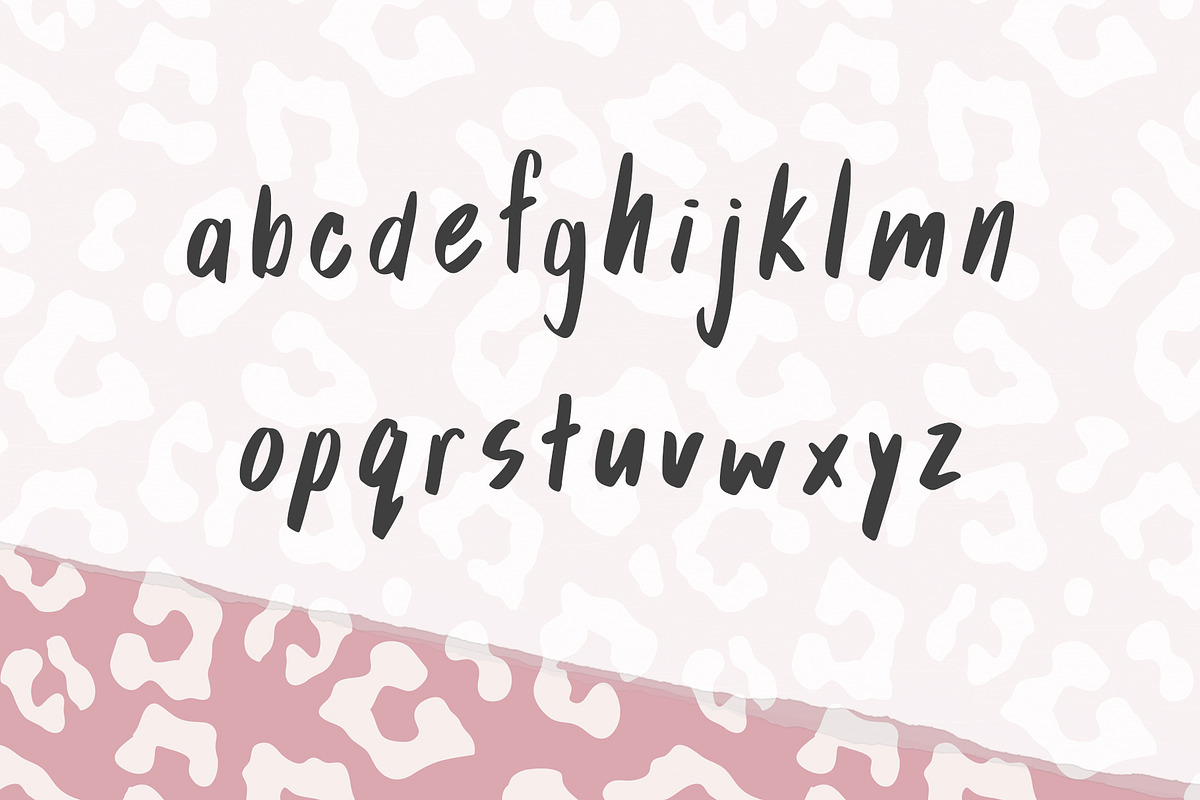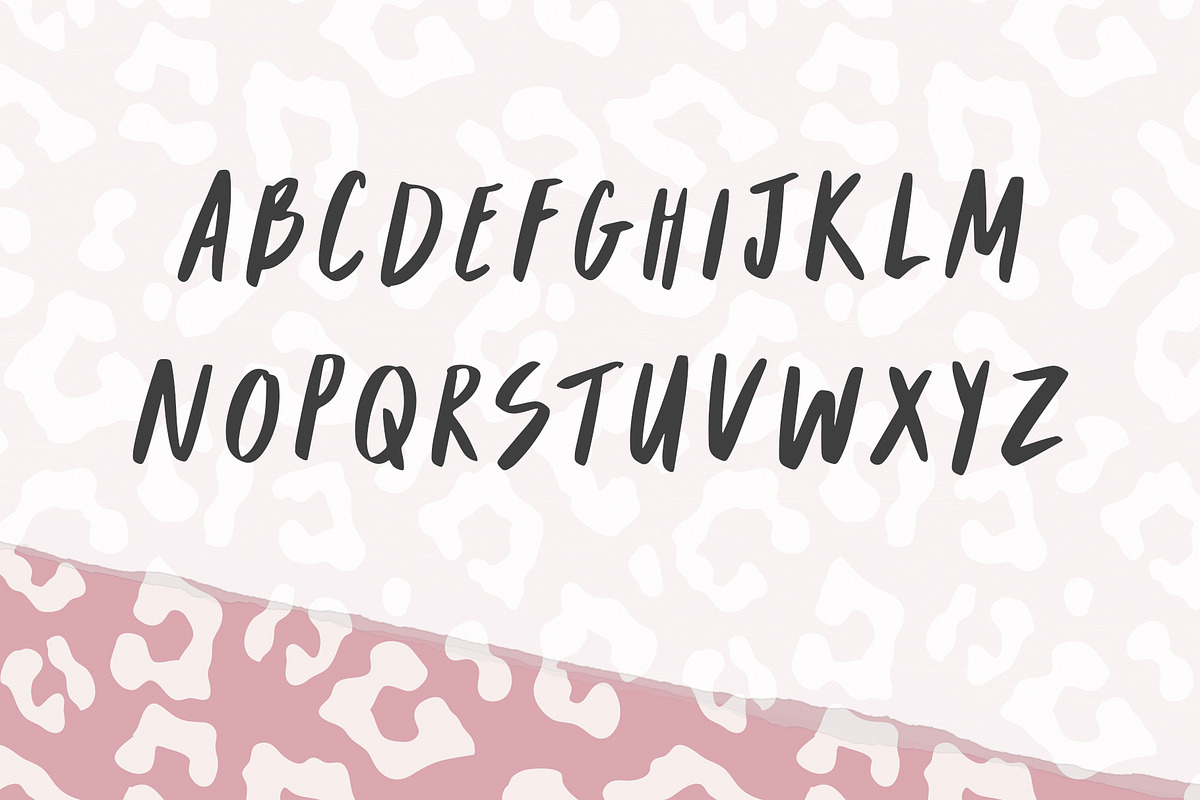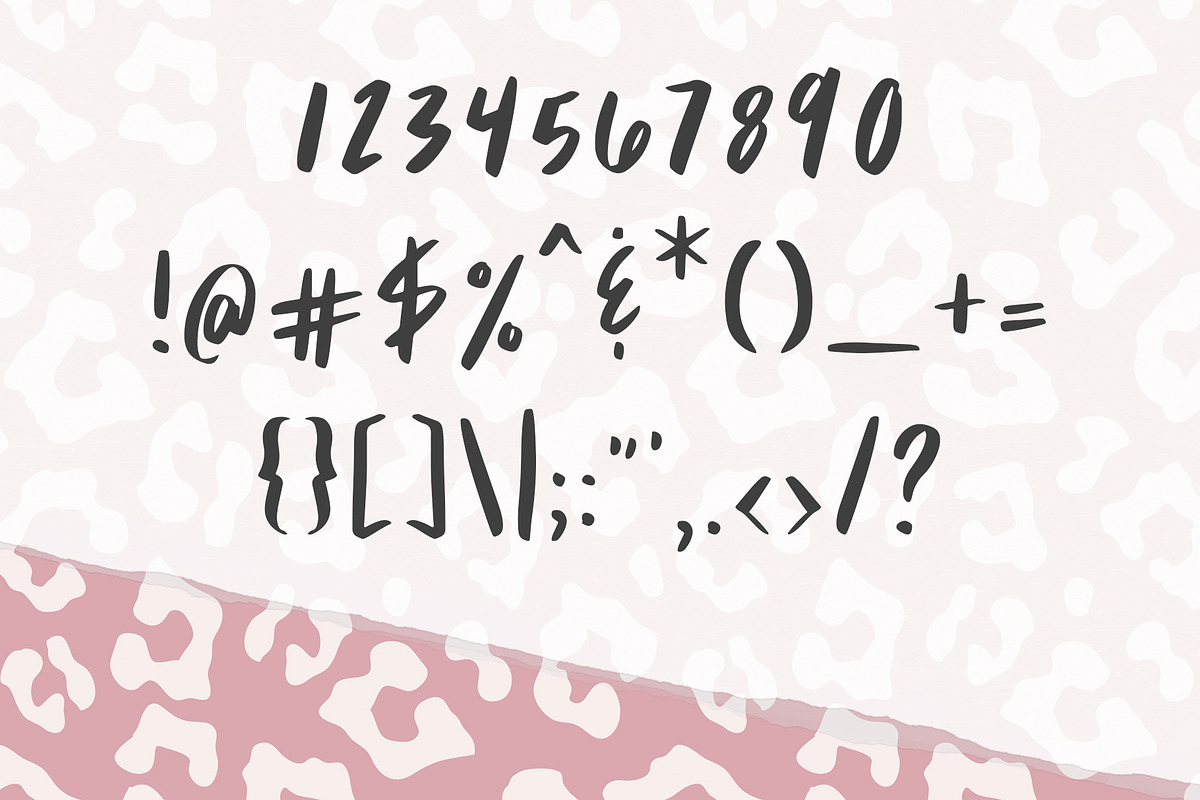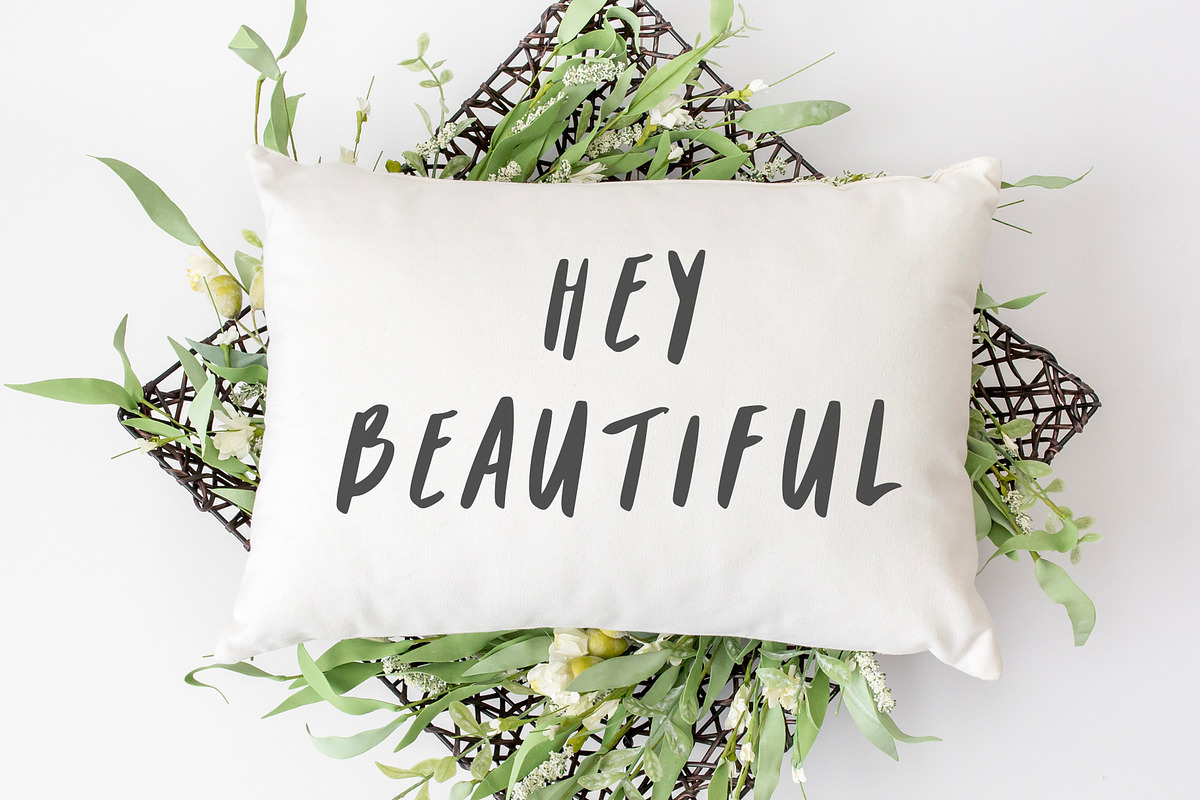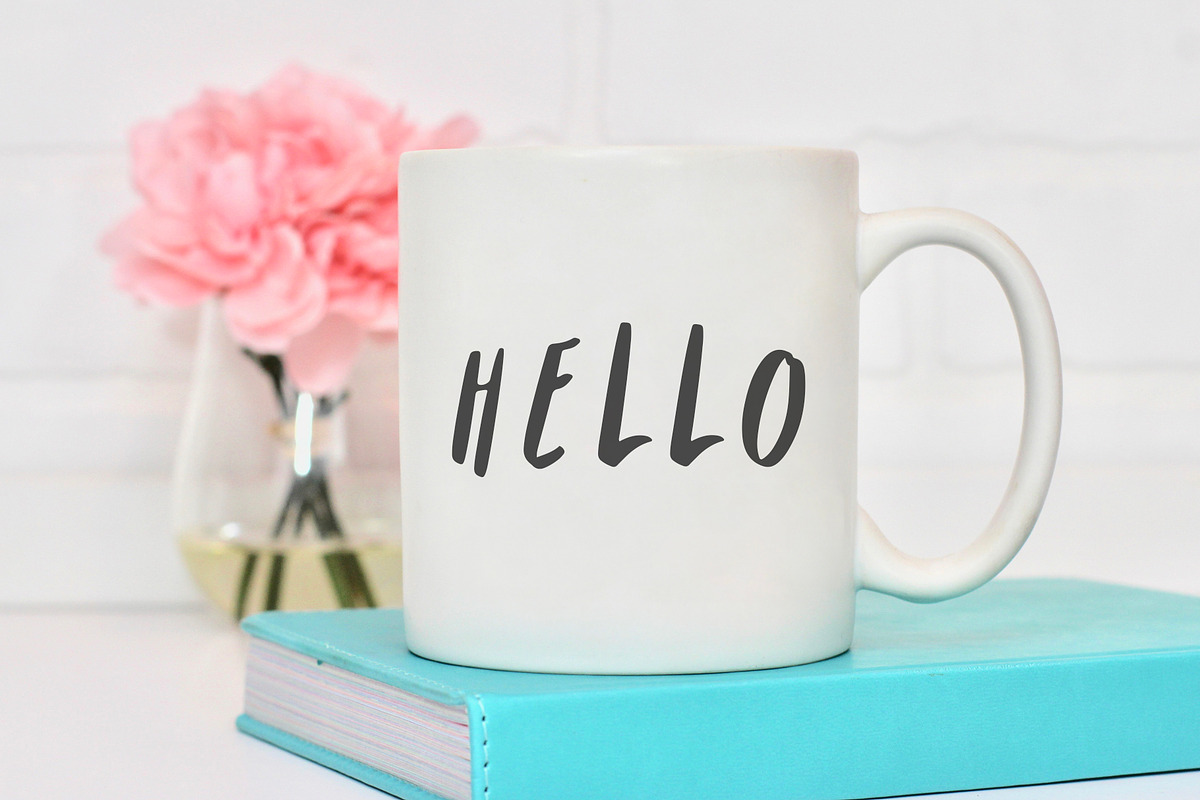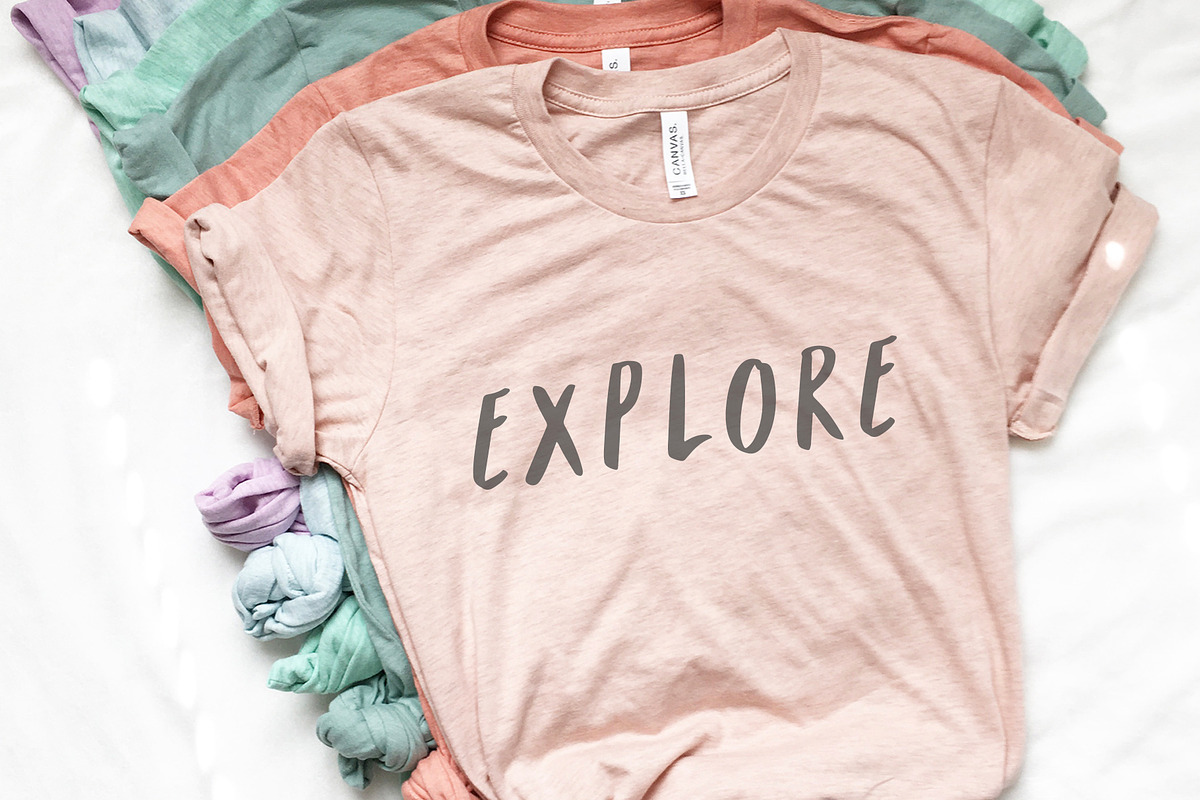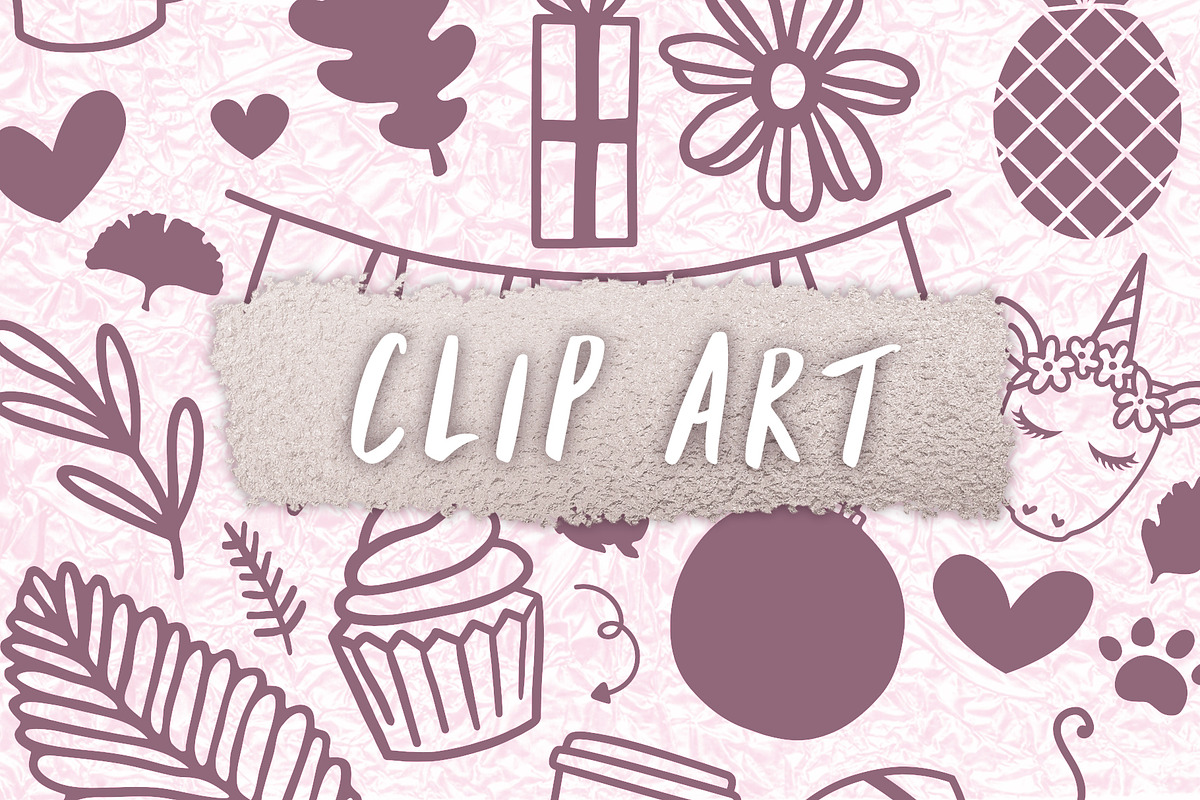
Defiant - a Rebellious Font
Defiant is a playful, rebellious font that adds a touch of fun to any design. If you're looking to make a logo for your business, design an Instagram ad, create signs, and more... this font is perfect for you! Stand out with the hand-written boldness shining through this beautifully-crafted font!
Express your adventurous side and create eye-catching end products with Defiant!